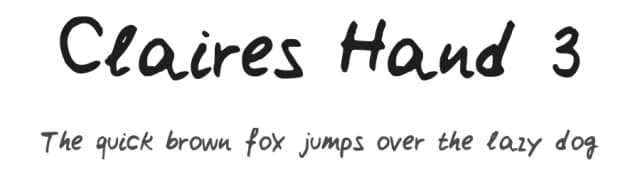
About Claires Hand Font
Claires Hand is a script & handwritten font designed by Clara. It includes 143 glyphs, a medium weight, TTF (TrueType) format, and 133 languages. Claires Hand is free to download; check the license details on this page before commercial use. Script & handwritten fonts like Claires Hand work best for wedding invitations, greeting cards, signatures, and elegant branding.
Claires Hand Font is a script font that shines as a display or heading face. Pair it with a clean sans-serif or serif font for body text β the contrast creates a clear hierarchy while the two styles stay balanced and easy to read.
Claires Hand Font
Claires Hand Font is a script handwritten typeface by Clara, ideal for logos, invitations, branding, and creative projects.